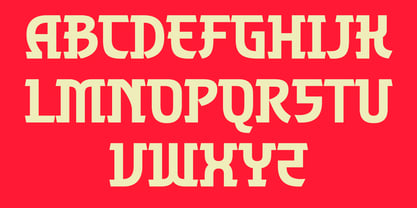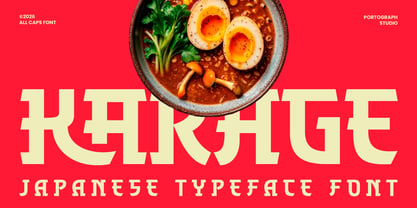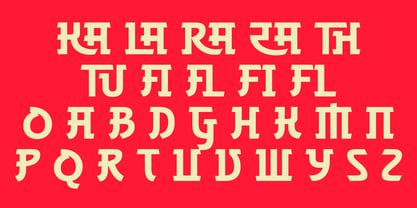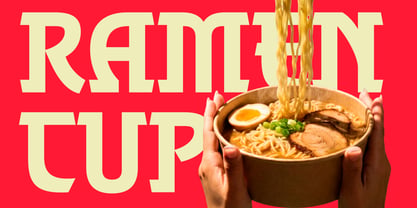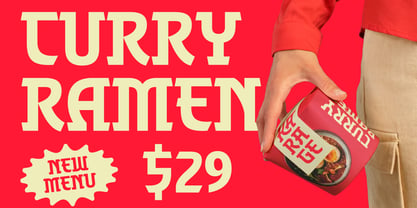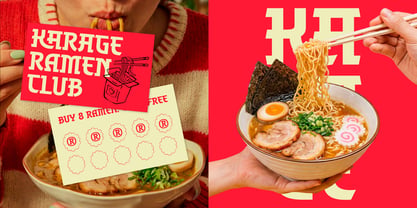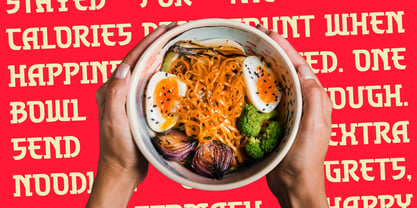
Karage
von Portograph Studio
Die Schriftfamilie Karage wurde von Mirdhatillah entworfen und von Portograph Studio veröffentlicht. Karage enthält 1 Stile. Mehr über diese Familie
Karage is a bold Japanese-inspired display typeface with strong cultural character and playful proportions. Designed to capture the warmth and energy of ramen shops, street food branding, and modern Asian-themed visuals, this font brings authenticity and impact to any design. With its distinctive letterforms, Karage works perfectly for food branding, restaurant menus, packaging, posters, signage, apparel, and promotional materials. The font includes uppercase characters, numerals, symbols, and multilingual support, making it suitable for both digital and print use.